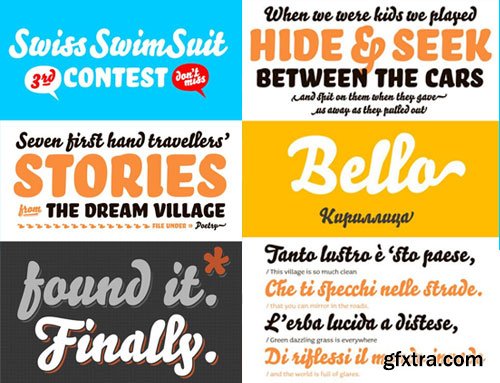
- Bello Pro is an OpenType font (.otf) which combines all Bello fonts into one sophisticated font. Bello Pro contains Advanced Layout Features, which makes it for example easy to automatically implement all the ligatures of Bello. But there is more to Bello Pro. SmallCaps are included in the same font, it’s possible to automatically replace the oldstyle figure style with lining figures, etc. And if you wanna hit Bello Pro hard, you can even automatically replace some words in your text by the pre-designed word logotypes.